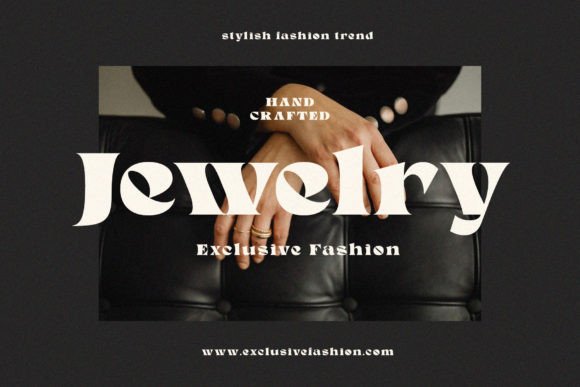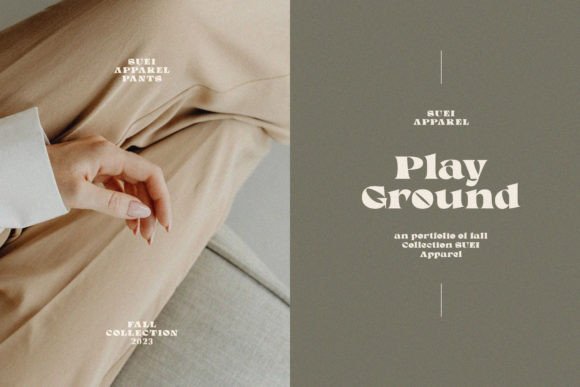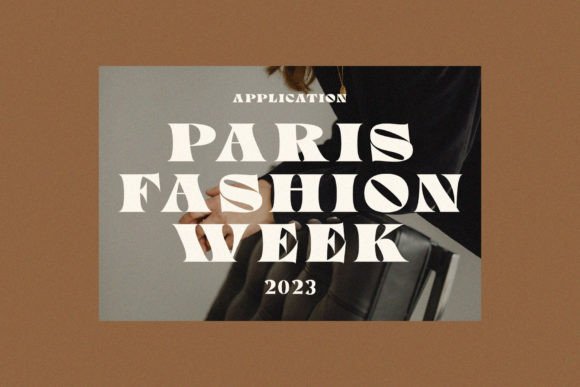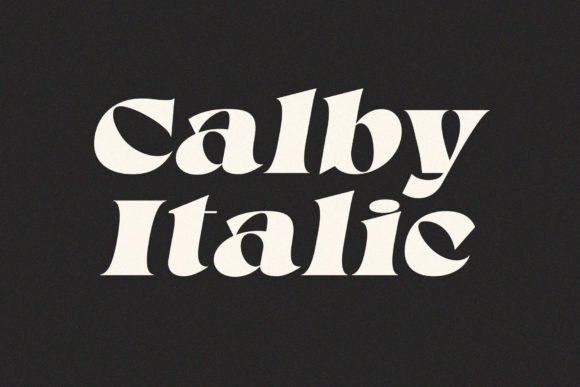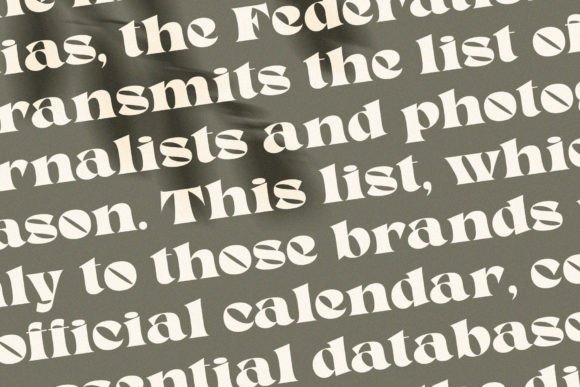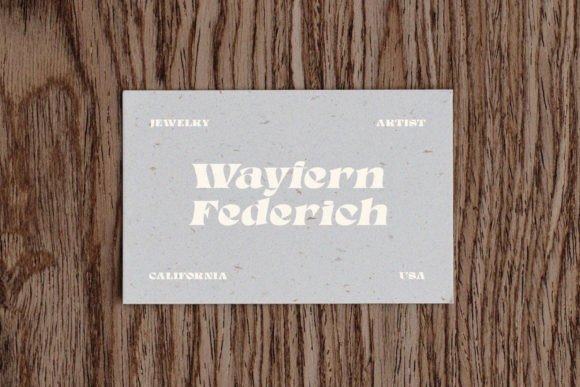
Introducing Calby Font: Elevate Your Designs with Elegance and Sophistication
In the world of typography, a new font family has emerged to capture the attention of designers and crafters alike. Meet Calby Font, a stunning serif font family that exudes elegance and sophistication. With its two distinct styles, regular and italic, Calby offers the perfect solution for those seeking to add a touch of personality to their designs or make a bold statement.
The Calby Font Family: A Study in Elegance
Calby Font is a masterclass in typographic design, boasting a sleek and modern aesthetic that is both simple and refined. The regular style of the font features clean lines, subtle curves, and a sophisticated feel that is perfect for a wide range of applications. Whether you’re designing a logo, creating a brochure, or crafting a website, Calby’s regular style is sure to impress.
But what really sets Calby apart is its italic style, which adds a touch of flair and drama to any design. With its flowing curves and dynamic lines, the italic style is perfect for those looking to add a bit of elegance and sophistication to their work. Whether you’re creating a formal invitation, designing a business card, or crafting a headline, Calby’s italic style is sure to turn heads.
Key Features of Calby Font
- Elegant Serif Design: Calby Font features a beautiful serif design that adds a touch of sophistication to any project.
- Two Distinct Styles: The font family includes two styles, regular and italic, allowing you to choose the perfect look for your design.
- Simple and Modern Aesthetic: Calby’s clean lines and subtle curves make it perfect for modern designs that require a touch of elegance.
- Highly Versatile: The font is suitable for a wide range of applications, from logos and brochures to websites and more.
Why Choose Calby Font?
So why choose Calby Font for your next design project? Here are just a few reasons:
- Stand Out from the Crowd: With its unique and elegant design, Calby Font is sure to help your project stand out from the crowd.
- Add Personality to Your Designs: Whether you’re looking for something simple and modern or extravagant and formal, Calby has the perfect style to add personality to your designs.
- Easy to Read and Understand: The font’s clear and legible design makes it easy to read and understand, even at small sizes.
How to Use Calby Font in Your Designs
Using Calby Font in your designs is easy. Here are a few tips to get you started:
- Pair with Other Fonts: Experiment with pairing Calby Font with other fonts to create a unique and visually appealing design.
- Use for Headings and Titles: The font’s elegant design makes it perfect for use in headings and titles.
- Add Texture and Patterns: Consider adding texture and patterns to your design to give it an extra layer of depth and interest.
In conclusion, Calby Font is a stunning serif font family that is sure to elevate your designs to new heights. With its elegant design, two distinct styles, and high level of versatility, Calby is the perfect choice for designers and crafters looking to add a touch of sophistication and personality to their work. So why wait? Download Calby Font today and start creating stunning designs that are sure to impress.